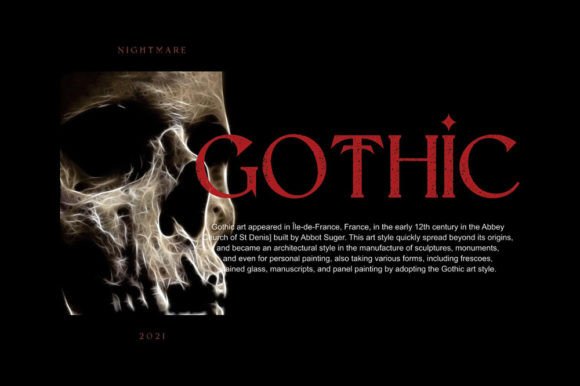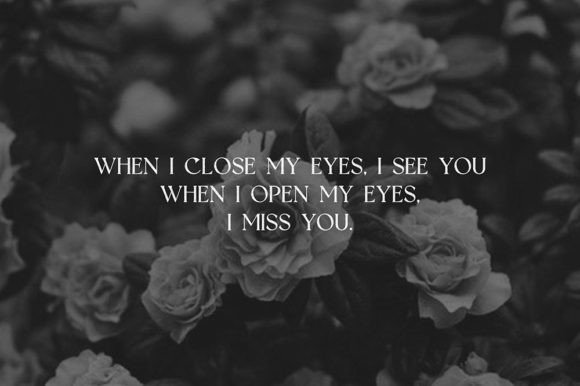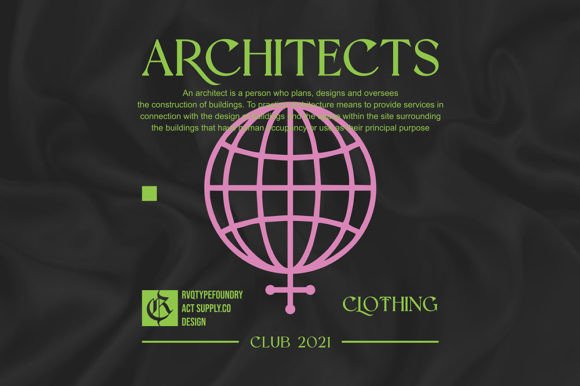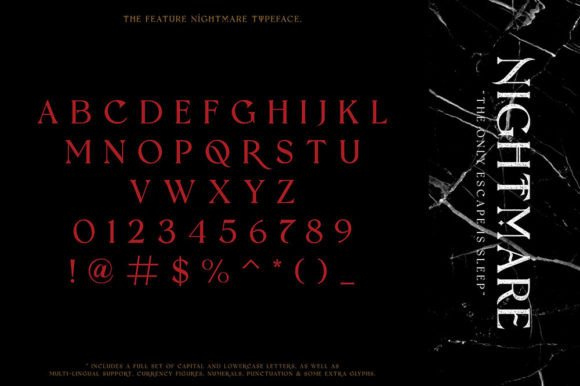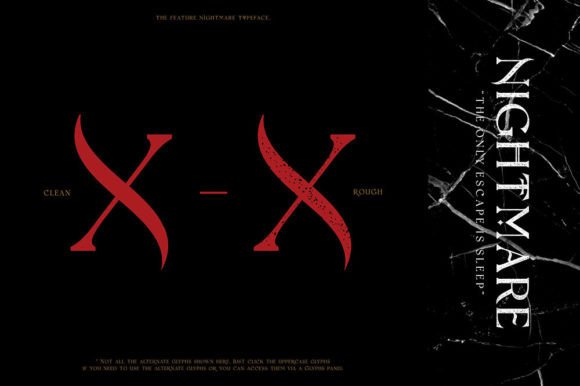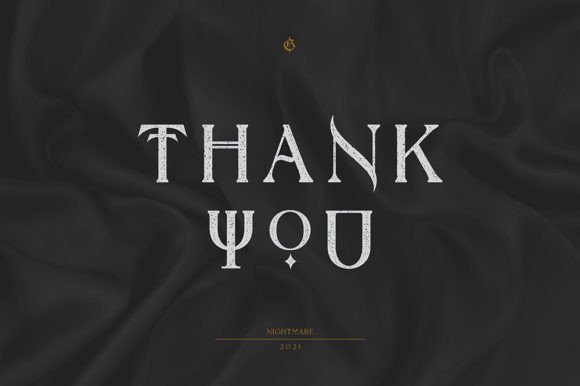
Introduction to Nightmare Gothic Font
As a designer, have you ever found yourself stuck in a creative rut, searching for the perfect font to bring your project to life? I know I have. The right font can elevate your design from bland to grand, and that’s exactly what the Nightmare Gothic Font does. With its bold, intricate lines and gothic flair, this font is perfect for adding a touch of mystery and sophistication to your creative project.
Whether you’re working on a branding project, designing a logo, or creating a set of greeting cards, the Nightmare Gothic Font is a valuable design resource that can help you achieve your vision. Its high quality and versatility make it an excellent choice for designers looking to add some edge to their work. And the best part? It’s available for free download, so you can start experimenting with it right away.
Key Features of Nightmare Gothic Font
- Unique Gothic style with a dark and mysterious feel, perfect for creative projects that require a touch of eeriness.
- High-quality design resource with a transparent background, allowing for easy integration into various design elements.
- Perfect for use in horror-themed designs, dark fantasy art, and other creative projects that require a Gothic atmosphere.
Honest Review: Nightmare Gothic Font
First impressions were great – the high quality of the font was evident, and I loved the gothic-inspired aesthetic. I was also pleased to see that the font has a transparent background, making it easy to work with.
- What works well: ✨ The font’s unique design and high quality make it a great addition to any creative project.
- What works well: ✨ The transparent background makes it easy to customize and integrate into your design.
- ⚠️ Limited character set – the font may not include all the characters you need for a particular project.
Overall, I’m impressed with the Nightmare Gothic Font. While it may have some limitations, it’s a great resource for designers looking for a unique and high-quality font for their creative project.
Tips for Getting the Most Out of Nightmare Gothic Font
For a transparent background, use a layer mask or a clipping path to remove the background. Experiment with different font sizes and colors to create a striking visual effect. Use the font in combination with other design elements to create a unique and eye-catching design.
The Nightmare Gothic Font is perfect for horror-themed projects, gothic-inspired designs, and creative projects that require a dark and mysterious atmosphere. You can use it for posters, flyers, brochures, or any other design material that requires a high-quality, gothic-inspired font.